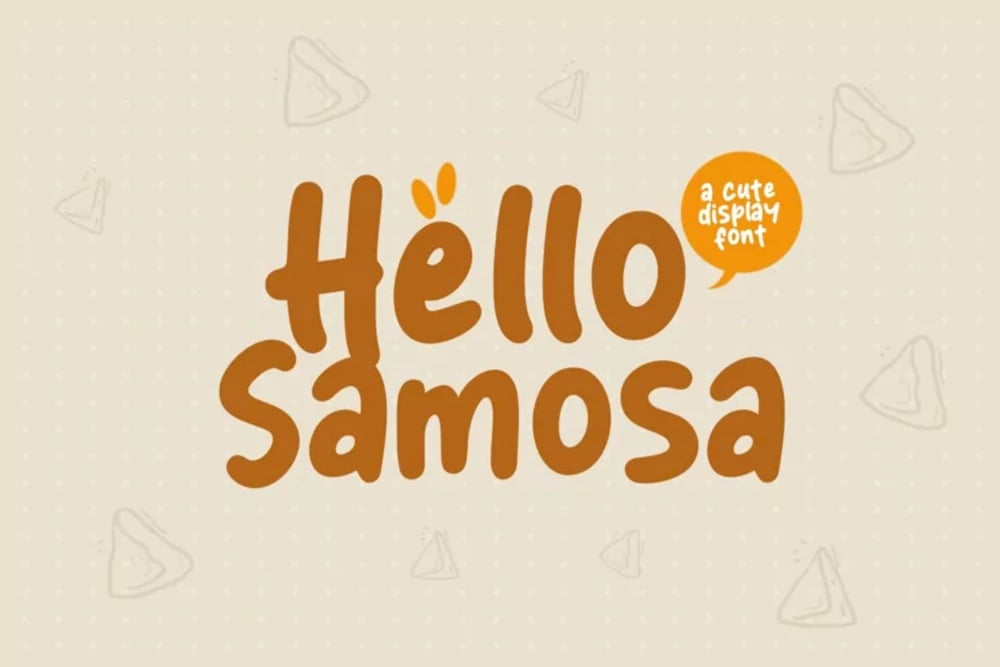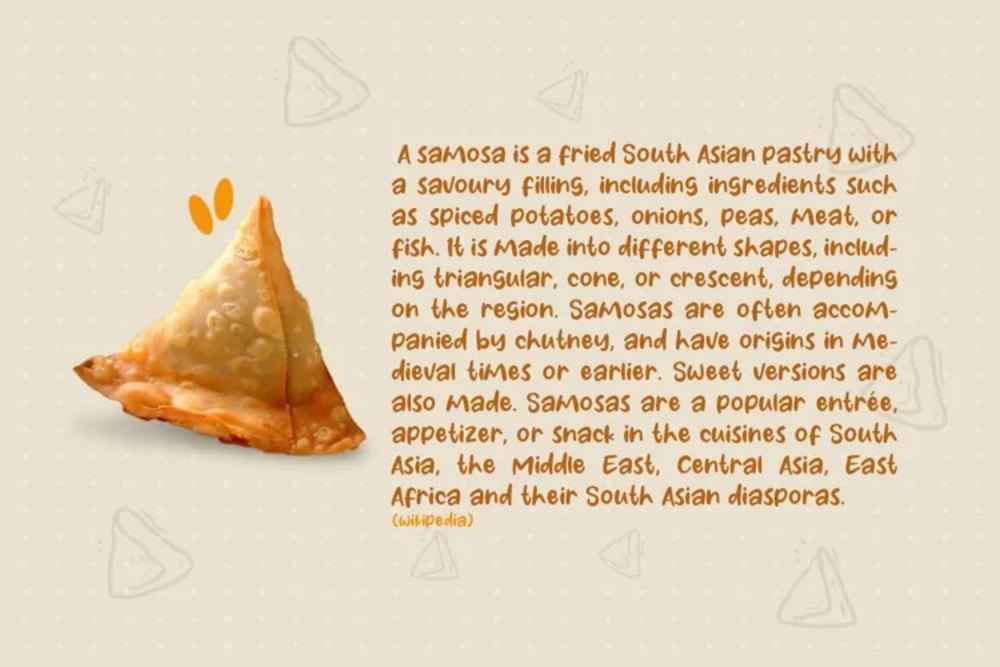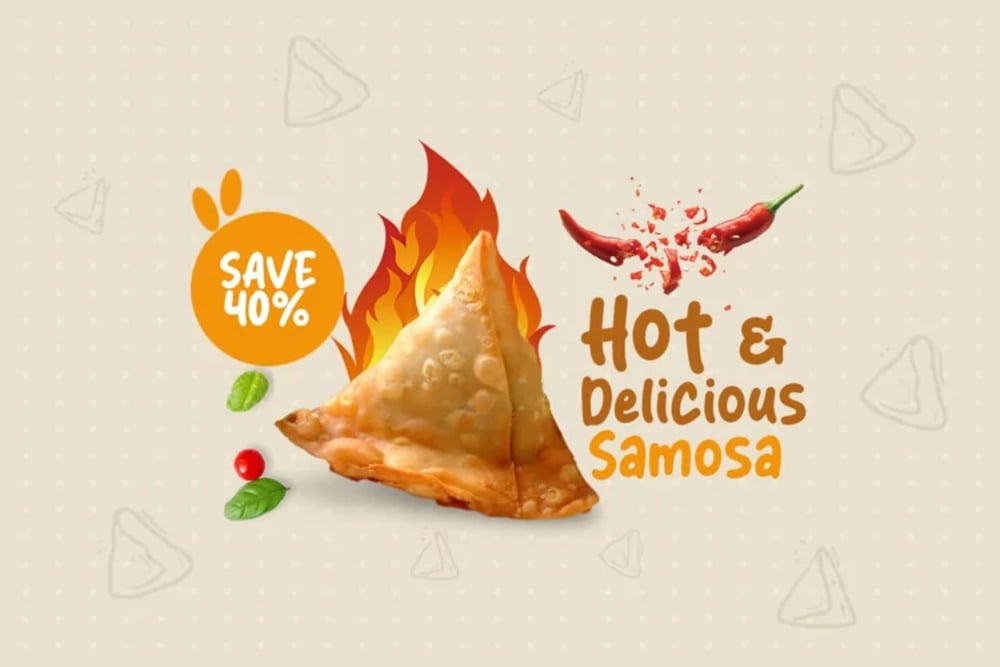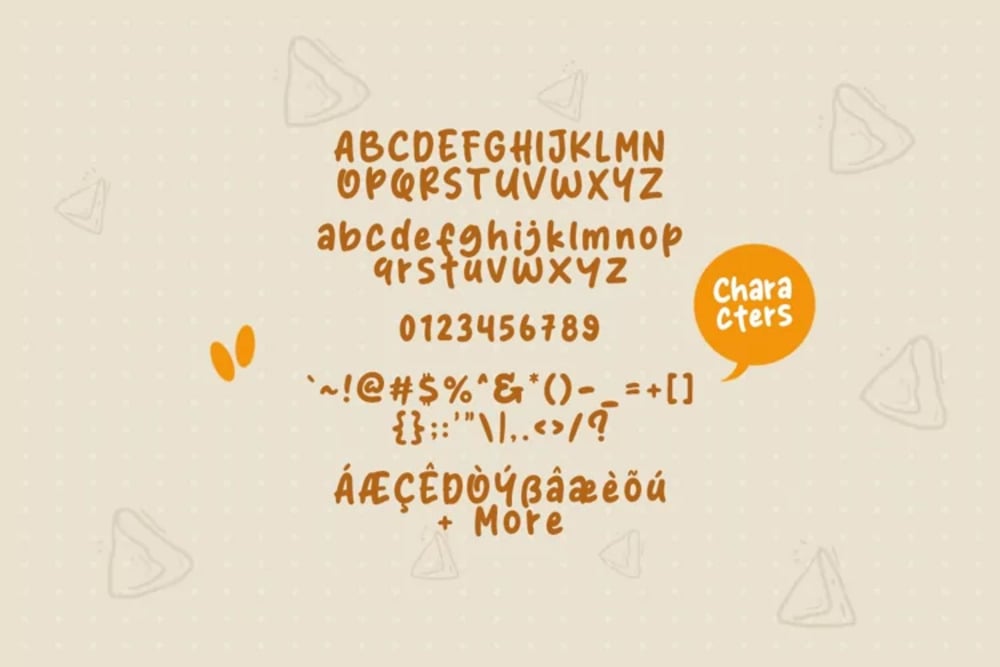
Hello Samosa Font
Hello Samosa is a fun and quirky handwritten font with a bouncy, playful baseline. Its friendly, slightly irregular letterforms give it a warm and approachable feel. Ideal for projects that need a touch of personality and whimsy, like food branding, greeting cards, or casual designs. Hello Samosa adds a lighthearted and inviting touch.